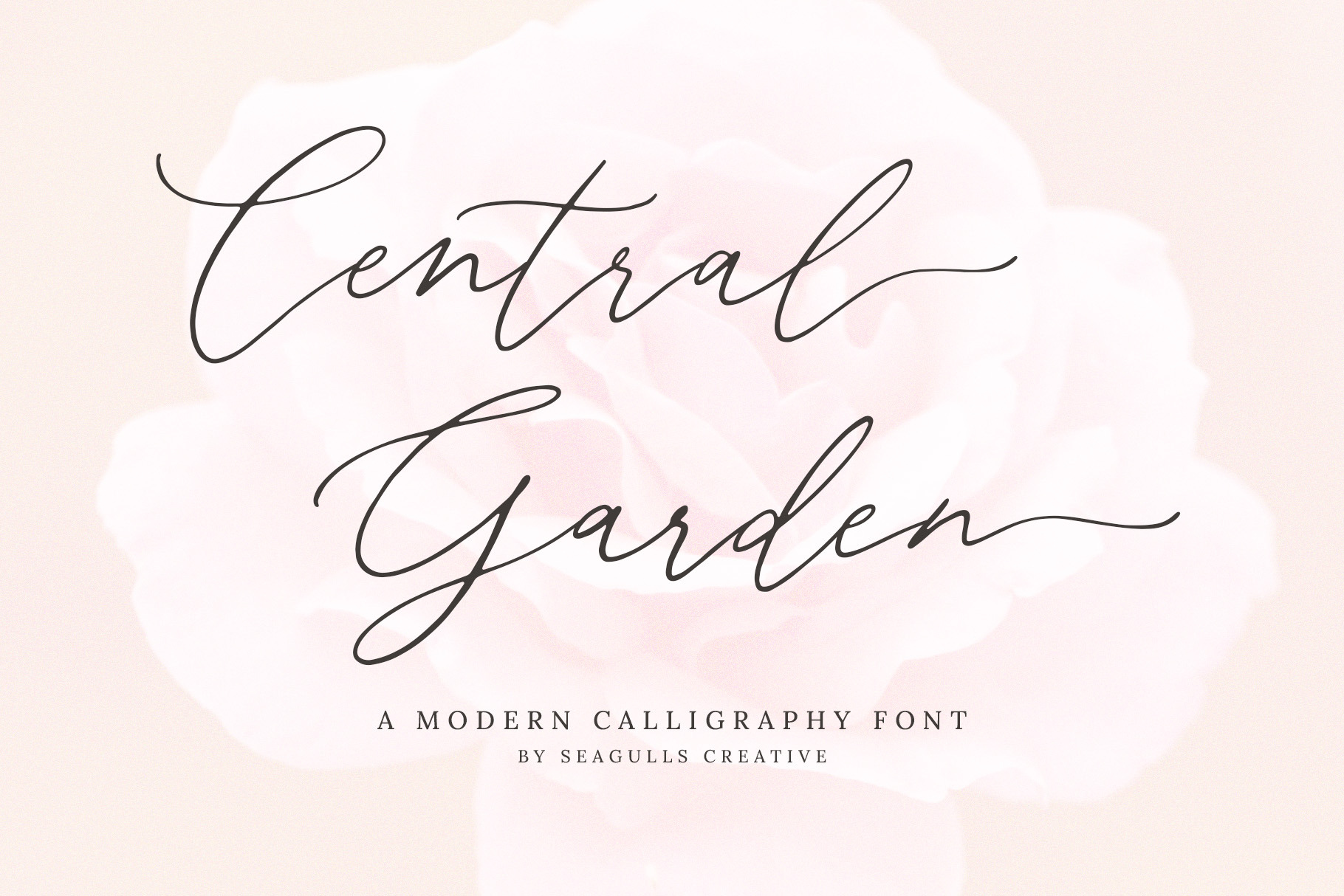
Central Garden Calligraphy Font
Hello everyone, I would like to introduce Central Garden a modern calligraphy font.
Central Garden can be used for a variety of projects such as branding, photography, invitations, stationery, wedding designs, social media posts, advertising, product packaging, product design and other romantic projects.
- Letters, numbers, symbols, punctuation, ligatures, beginning and ending lowercase swashes